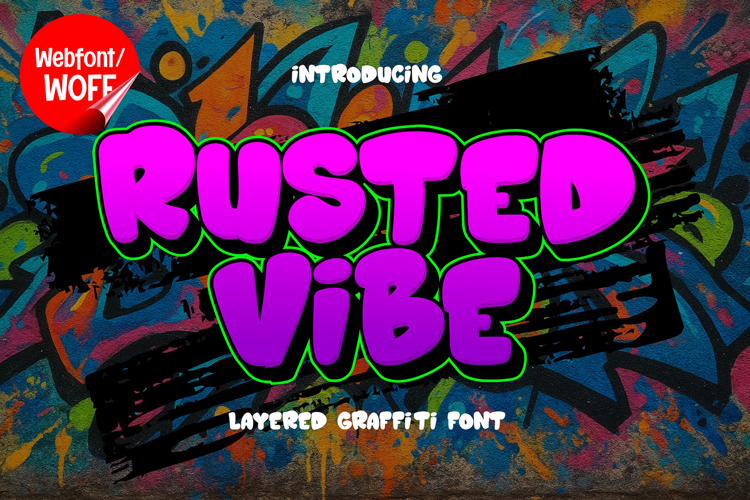
Rusted Vibe | 3D Layered Graffiti Webfont for Urban Street
Rusted Vibe is a 3D layered graffiti webfont designed to bring gritty street-art aesthetics and dimensional urban style into modern website design. Inspired by weathered graffiti murals, industrial textures, and layered spray-paint lettering, this font features bold shapes combined with dynamic depth that create a powerful and edgy visual identity. It is an excellent choice for projects that aim to deliver authentic urban energy with strong visual impact.
Rusted Vibe includes a complete set of uppercase characters designed with graffiti-inspired forms enhanced by layered 3D styling. The letterforms feature chunky structures, expressive movement, and dimensional depth that create a rugged and energetic appearance. These characteristics make it ideal for headlines, banners, hero sections, promotional graphics, and featured content where bold urban visuals are needed.
In addition to letters, the font includes numbers and punctuation, allowing flexible usage across various parts of a website. It works well for streetwear branding, gaming websites, music platforms, creative portfolios, esports graphics, and urban-inspired digital campaigns. Each character maintains a consistent layered graffiti style, ensuring a cohesive and unified visual identity throughout the design.
With multilingual support, Rusted Vibe includes a wide range of accented characters, making it suitable for international websites and global audiences. This ensures content remains clear and visually consistent across different languages while preserving the gritty and expressive graffiti aesthetic.
The 3D layered graffiti style of Rusted Vibe makes it especially suitable for hip hop branding, underground culture projects, entertainment websites, and youth-oriented digital campaigns. Its dimensional structure and rugged appearance create a strong street-art atmosphere that helps websites stand out in visually competitive environments. The layered depth adds movement and intensity while maintaining a modern urban style.
Despite its bold and decorative appearance, Rusted Vibe is designed with readability in mind. The spacing and proportions are carefully balanced to ensure clarity, particularly in display sizes. This allows designers to use the font effectively for impactful headings and short content without sacrificing usability.
Rusted Vibe is a webfont that combines layered graffiti aesthetics with modern digital performance. Its bold forms, dimensional depth, and urban character create a distinctive typographic presence that enhances website design. For projects that require a strong, gritty, and visually engaging graffiti font, Rusted Vibe offers a versatile and powerful solution.